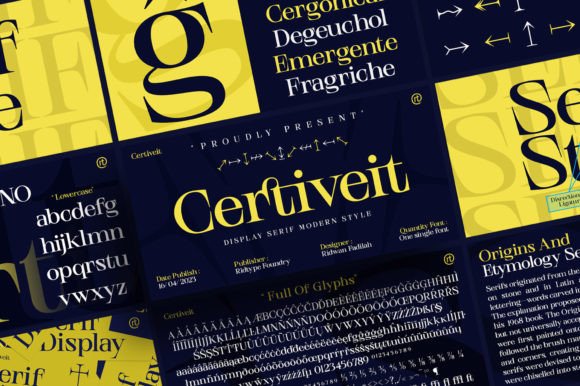
Unveil the Timeless Elegance of a bygone era with Certiveit, the Quintessential Palimpsest-like Digital Product Collection. Prepare to be transported back to the early 20th century, when opulently attired font aficionadoss toil laborously to create these exquisite typographical works of art.
Certiveit is a unique work of art, a font that captures the allure of the past while still being modern and current. Certiveit's beautiful and flowing forms are ideal for any creative project, from wedding announcements to posters to website designs. When you use Certiveit, you're not only evoking the spirit of art deco, but you're also signaling to the world that you're a person with discerning taste and an eye for the finer things in life.
Certiveit is more than just a font; it's an experience. When you install Certiveit, you're not only gaining access to a powerful tool for creating beautiful designs. You're bringing the past back to life, allowing modern designers to channel the creative spirit of the art deco era and apply it to the digital age.